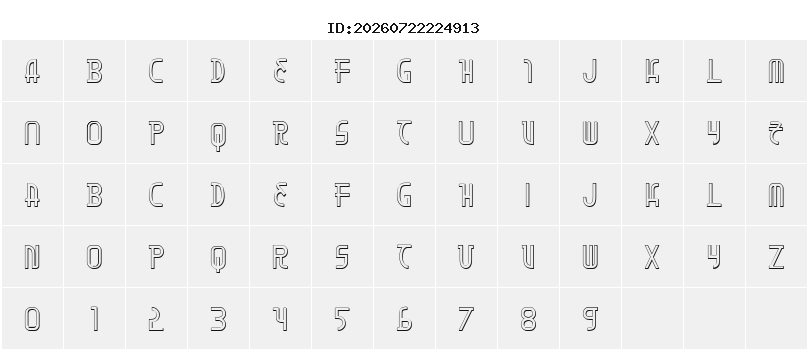
Moon Dart 3D Preview
• Font Name: Moon Dart 3D
• Full Font Name: Moon Dart 3D
About Moon Dart 3D.ttf
Moon Dart 3D.ttf is a modern, elegant sans-serif font designed for ultimate readability and visual harmony. Perfect for branding, headlines, web design, and print materials.